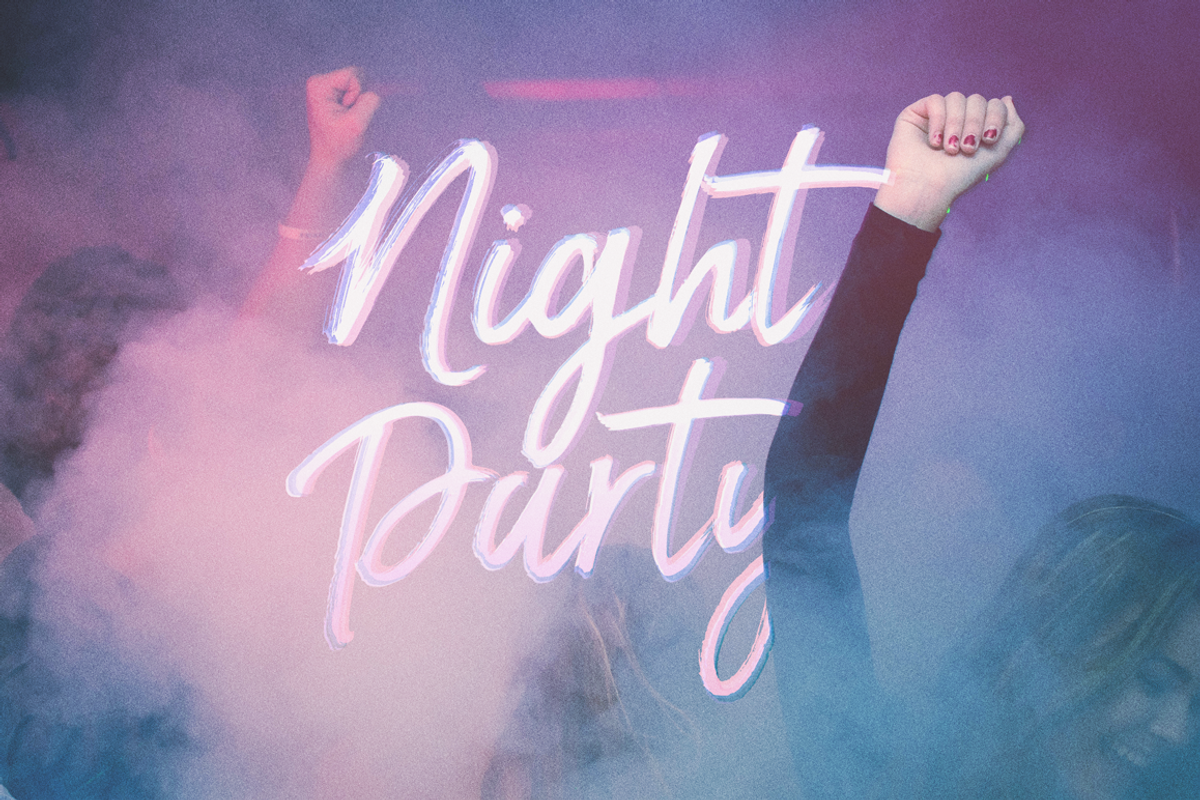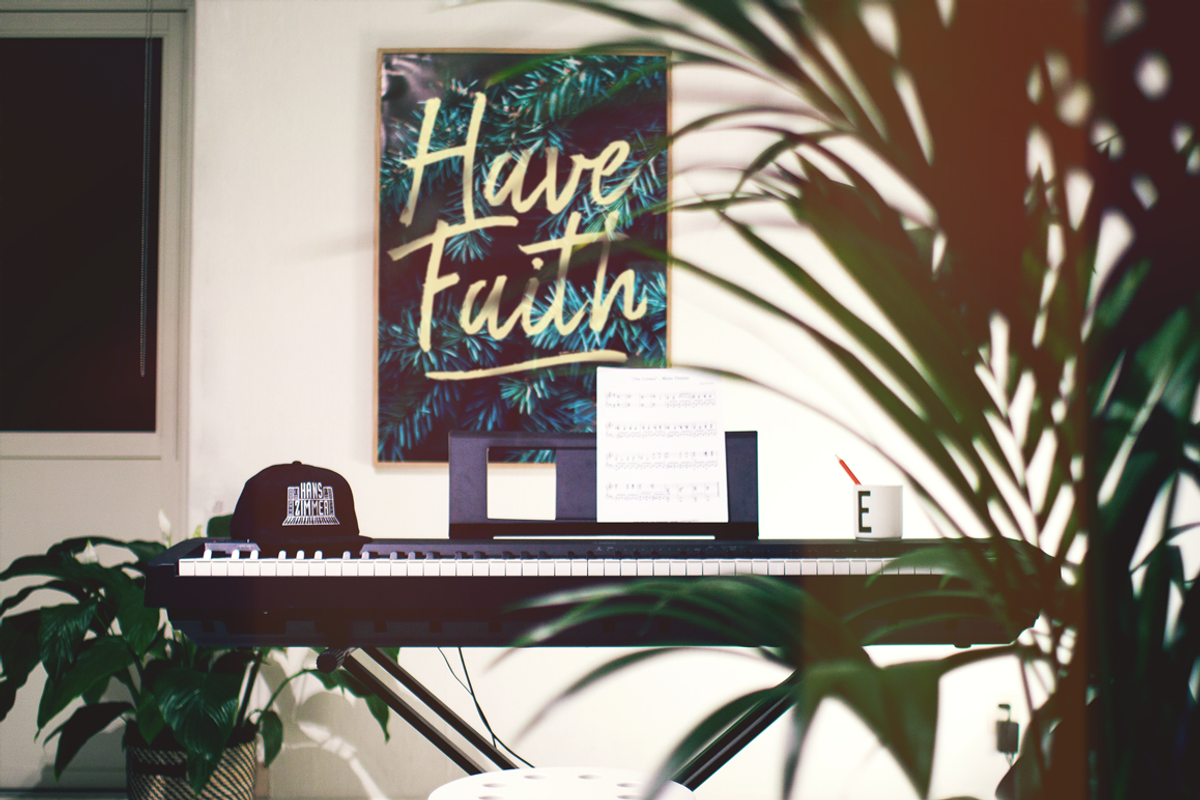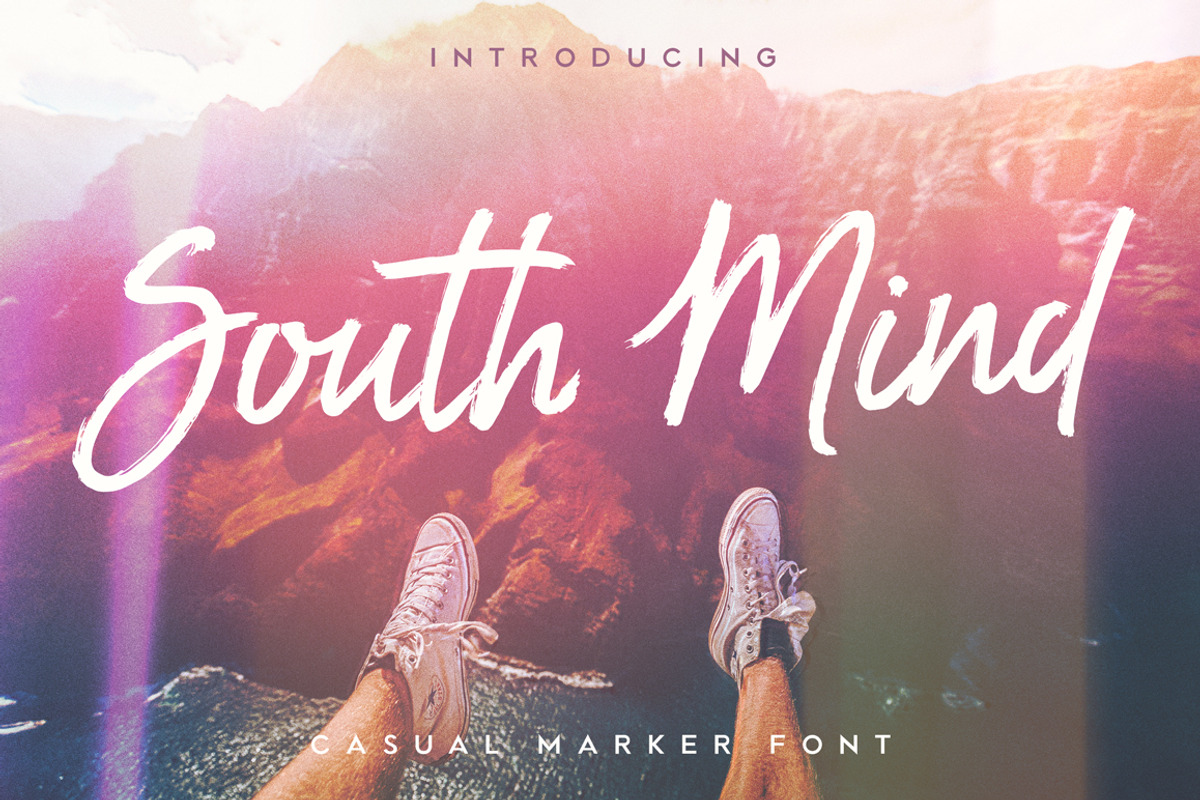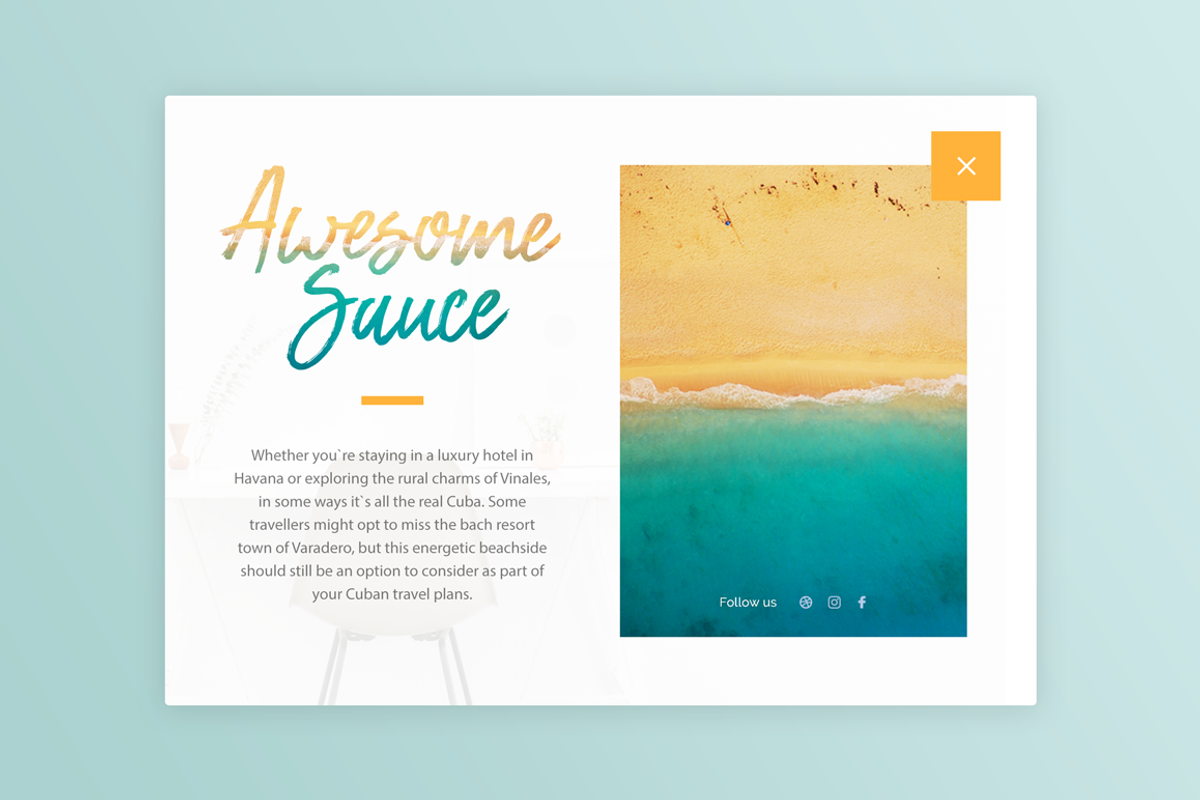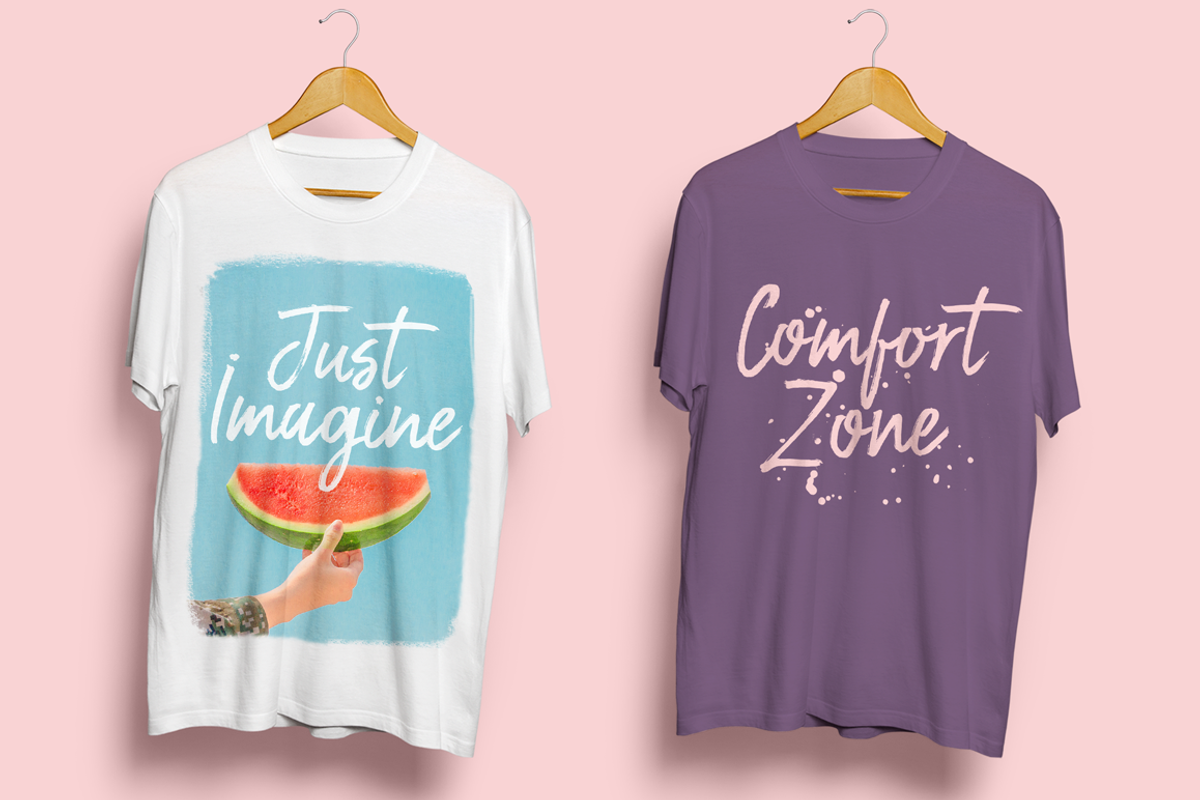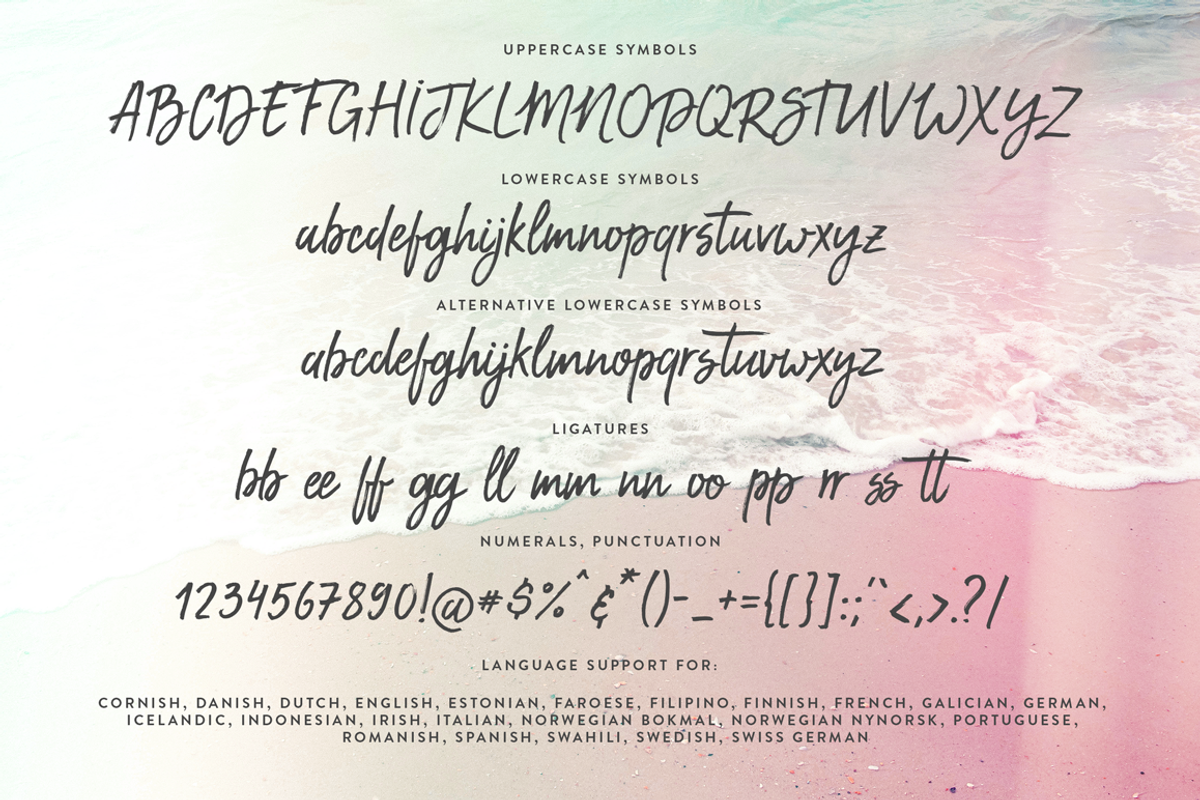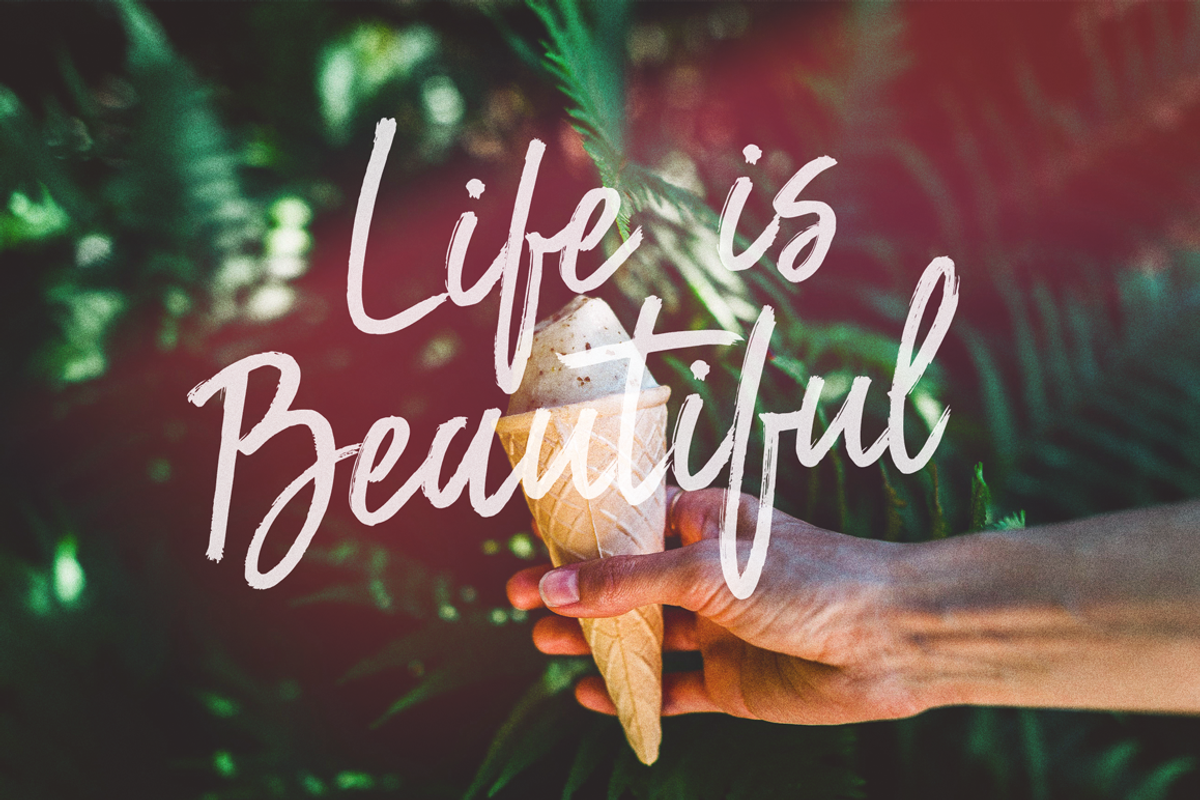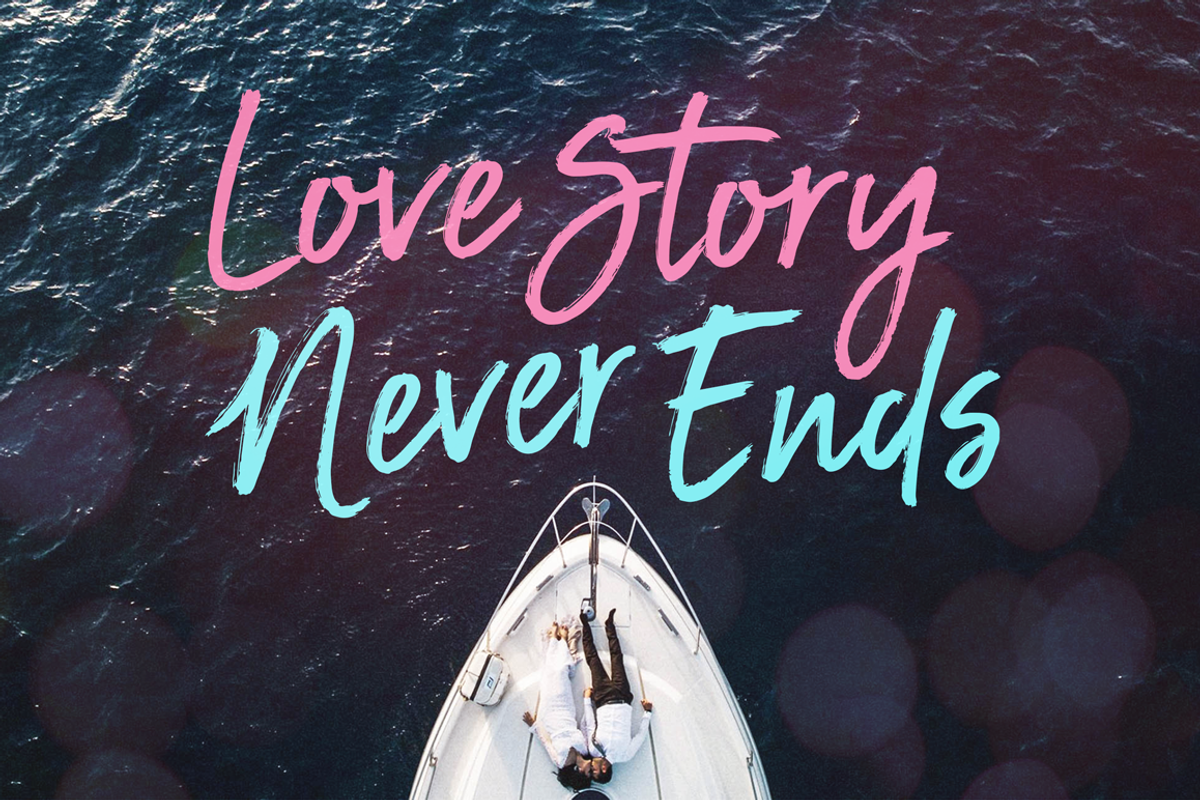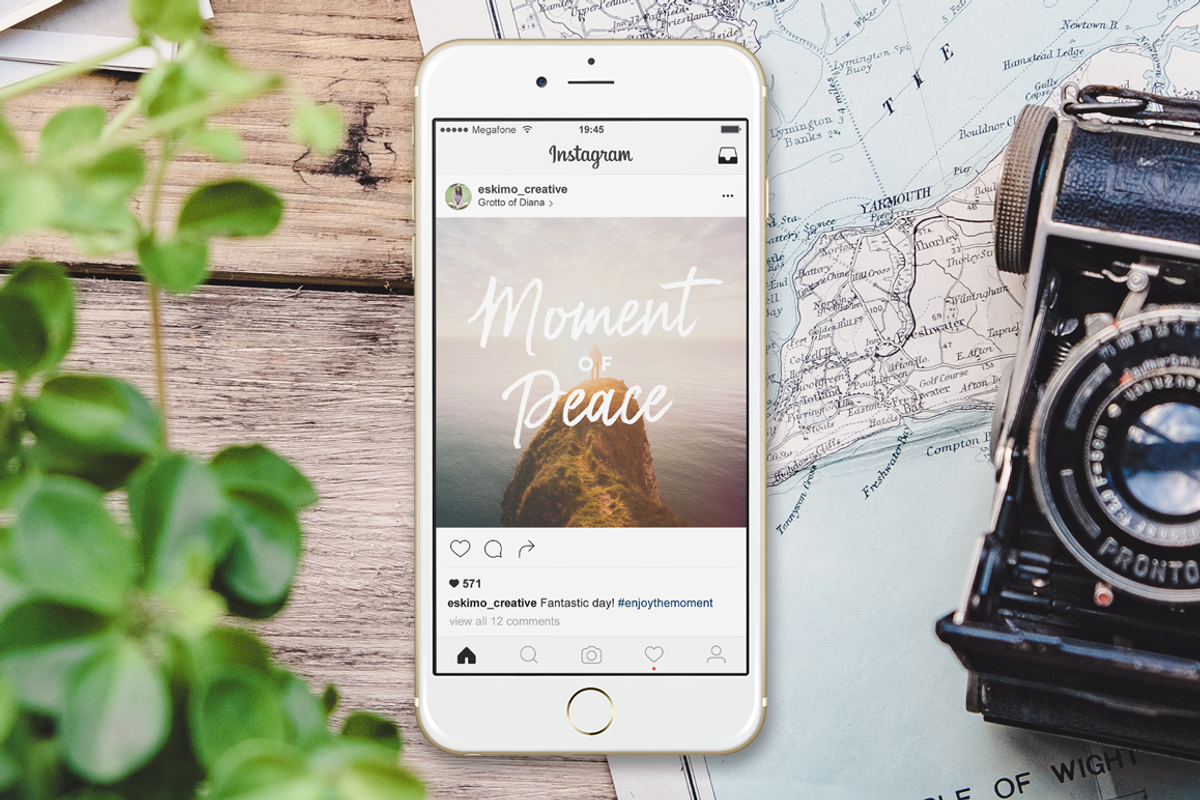
South Mind Font
Juicy, hot and so summery, South Mind is a casual, super handy dry brush font with a natural flow. We created South Mind inspired by the summer vibes, lots of travels and the salted Ocean. We wanted to create a font, that has no boundaries, that perfectly fits for any purposes. South Mind is the perfect choice for personal branding projects, prints, merchandise, atmosphere and unique wedding invitations. And, of course, social media: South Mind + Instagram = Perfect couple. Finally, you can use it whatever you like, even as a modern and casual text overlay to any of your images.
South Mind Font comes with a set of alternate lowercase letters, double letter ligatures, wide set of punctuation and numerals, all in one handy font.
- Language support is included for the following languages: Cornish, Danish, Dutch, English, Estonian, Faroese, Filipino, Finnish, Galician, German, Icelandic, Irish, Italian, Norwegian Bokmål, Norwegian Nynorsk, Spanish, Swedish, Swiss German.
South Mind comes in various styles: Regular and Sloped and with Alternate letters* — this way you can write one word in a million different ways and bring your awesome type designs to life!